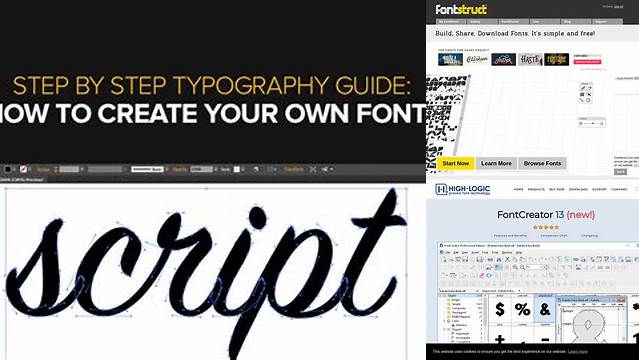
Create Your Own Font Free: A Beginner's Guide
Hey guys! Ever thought about designing your own font? It's a super cool way to express your creativity and add a unique touch to your projects, whether it's for personal use, branding, or even for selling online. The good news is you don't need to be a professional typographer to get started. In fact, making your own font free is totally achievable with the right tools and a bit of time. In this guide, we'll walk you through everything you need to know to embark on this exciting journey, from understanding the basics of font design to choosing the right software and finally, bringing your font to life. Let's dive in!
Understanding the Fundamentals of Font Design
Before we jump into the how-to, let's get a grip on the fundamentals. Think of font design like building with letters instead of bricks. Every character, from the majestic capital 'A' to the humble lowercase 'e', is a building block. Each font has its own personality, dictated by its style, weight, and the overall aesthetic you want to achieve. When you start to make your own font free, it's important to understand these elements that make up a font. This involves grasping the key parts of a typeface, like its x-height (the height of the lowercase 'x'), ascenders (parts of letters like 'b' and 'd' that go above the x-height), descenders (parts of letters like 'p' and 'g' that go below the baseline), and the counter (the negative space within letters like 'o' or 'a').
Think of it like this: the x-height is like the ground floor, the ascenders are the upper stories, and the descenders are the basement. The counter is the empty space within the letter, creating a space where the eye can rest and keep it easy to read. Knowing this will help you make decisions about how tall and wide you want your letters to be, and how open or closed you want the spaces to be. This is one of the most important concepts when you make your own font free. You'll also want to know about different font styles, like serif (with small strokes at the end of letters, like Times New Roman), sans-serif (without those strokes, like Arial), monospace (where all letters take up the same amount of space, like Courier New), and script fonts (which mimic handwriting). Every style has its own unique uses. Serifs are often considered traditional and are useful for body text, while sans-serifs are more modern and work well for headings. Monospace fonts are fantastic for coding or anything where consistent letter spacing is crucial. Scripts can add a personal touch, though they might not be ideal for long passages. All of this is crucial when you make your own font free because you can apply all of these fundamentals.
Consider the font's personality. Do you want it to be playful, serious, elegant, or modern? Your font's design should reflect that. The weight of the font (light, regular, bold, etc.) will impact how it's used. A bold font will grab attention, while a light font can be suitable for body text. Spacing is also very important. You need to make sure that the letters are spaced in a way that is easy to read and feels right. This includes the space between the letters (kerning) and the space between words (tracking). Kerning is especially important because you will need to customize how certain letter pairs are displayed to improve their readability, because if the spacing between each character is too much or too little, it will be hard for the user to read.
Choosing the Right Free Font Creation Software
Alright, now that you've got the basics down, it's time to pick the right tools! Thankfully, there are some awesome free font creation software options out there that make the process a breeze. So let's jump into the tools that you can use to make your own font free. Your choice here will largely depend on your operating system (Windows, macOS, or Linux) and your design experience.
1. FontForge: FontForge is the granddaddy of free, open-source font editors. It's available for Windows, macOS, and Linux, making it a versatile choice. It’s a powerful tool that will give you lots of control, but it can have a bit of a learning curve, especially if you're new to font design. However, the wealth of tutorials and documentation available online makes it a great choice for those willing to invest time in learning its features. FontForge supports a wide range of font formats, which means you can create fonts that are compatible with different devices and software programs. You can customize everything about your font, from the shapes of individual glyphs to the overall spacing and kerning. You can import existing vector graphics to use as a starting point. Its powerful feature set makes it possible to create professional-quality fonts. When you make your own font free, FontForge is an amazing option to consider.
2. BirdFont: If you're looking for something with a more user-friendly interface, BirdFont is a good alternative. It's primarily designed for beginners and has a more intuitive workflow. It focuses on vector-based drawing, and it makes drawing letterforms a fun and straightforward experience. It also has a good number of tutorials and guides to help you learn the ropes. BirdFont lets you create fonts with a variety of styles and can export to popular font formats. The interface is simple, which helps users of all levels to easily create and make your own font free. If you are a newbie, this tool is a great starting point.
3. Glyphs Mini: While not entirely free, Glyphs Mini offers a free trial period that lets you test it out. Glyphs Mini is known for its high quality and is an excellent choice for serious font design, as it's streamlined to work like a pro. The interface is very user-friendly, with tools and guides designed to help you get the most out of your design. While this option might require a purchase, the free trial is a good way to make your own font free and get a feel for the program before fully committing.
4. Online Font Generators: There are several online font generators that let you create basic fonts quickly and easily. These are a great starting point for beginners who want to experiment with font design without installing any software. These tools usually have a simple interface where you can draw your letters or upload existing images. The level of customization is limited compared to dedicated software, but it can be a great way to get your feet wet and get an idea of what you want to do. Because it is online, it is very accessible and you can make your own font free from any device.
Each software has its own strengths and weaknesses. Do your research, try out a few different programs, and see which one fits your needs and design style best.
Step-by-Step Guide: Creating Your Font
Ready to start designing your own font? Let’s get to the exciting part! Here’s a step-by-step guide to make your own font free. This guide is general, but most software will have a similar process.
1. Planning and Sketching:
Conclusion: Unleash Your Inner Font Designer
There you have it! With these steps and some determination, you can absolutely make your own font free. It's a rewarding creative outlet, and you might be surprised at how much you enjoy it. It might take a little time, but with practice, you’ll be creating beautiful and functional fonts in no time. So, go forth, experiment, and have fun. The world of font design awaits! Happy designing! Now it's your time to make your own font free and let the world see your font!